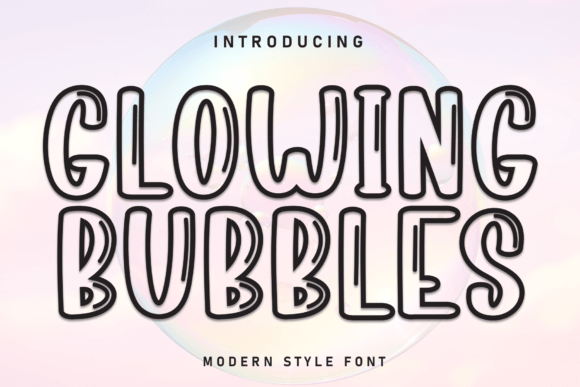
Glowing Bubbles Font: The Perfect Addition to Your Playful Designs
In the world of typography, fonts play a crucial role in conveying the tone and personality of a brand or design. When it comes to creating eye-catching and fun designs, the right font can make all the difference. This is where Glowing Bubbles Font comes in – a modern display font that features bright, bubble-like letters that are sure to make your text stand out.
What is Glowing Bubbles Font?
Glowing Bubbles Font is a modern display font designed to add a touch of excitement and playfulness to your projects. Its bright, bubble-like letters are perfect for making text stand out in posters, headlines, and other designs where you want to grab the attention of your audience. The font has a vibrant and lively appearance, making it ideal for designs that require a youthful and energetic feel.
Key Features of Glowing Bubbles Font
So, what makes Glowing Bubbles Font so special? Here are some of its key features:
- Bright and Bubble-like Letters: The font features bright, bubble-like letters that are sure to catch the eye.
- Modern and Playful Design: The font has a modern and playful design, making it perfect for designs that require a youthful and energetic feel.
- Easily Readable: Despite its playful design, the font is easily readable, even at smaller sizes.
- High-quality Design: The font is designed with high-quality graphics, ensuring that it looks great in any design.
Use Cases for Glowing Bubbles Font
So, where can you use Glowing Bubbles Font? The possibilities are endless, but here are some ideas to get you started:
- Posters and Flyers: Use Glowing Bubbles Font to create eye-catching posters and flyers that grab the attention of your audience.
- Headlines and Titles: Use the font to create bold and playful headlines and titles that add a touch of excitement to your designs.
- Social Media Graphics: Use Glowing Bubbles Font to create social media graphics that stand out in crowded feeds.
- Playful Designs: Use the font to add a touch of playfulness to your designs, such as in children’s books, games, or apps.
Benefits of Using Glowing Bubbles Font
So, why should you use Glowing Bubbles Font in your designs? Here are some benefits:
- Adds a Touch of Excitement: The font adds a touch of excitement and playfulness to your designs, making them more engaging and attention-grabbing.
- Perfect for Youthful Brands: The font is perfect for brands that want to convey a youthful and energetic personality.
- Easily Customizable: The font is easily customizable, allowing you to adjust its size, color, and style to fit your design needs.
- High-quality Graphics: The font is designed with high-quality graphics, ensuring that it looks great in any design.
Tips for Using Glowing Bubbles Font
Here are some tips for using Glowing Bubbles Font in your designs:
- Use it Sparingly: Use the font sparingly to avoid overwhelming your design. Use it for headlines or titles, and a more neutral font for body text.
- Experiment with Colors: Experiment with different colors to find the one that works best for your design. You can also use gradients or textures to add depth and interest.
- Pair it with Other Fonts: Pair Glowing Bubbles Font with other fonts to create a unique and interesting contrast. Try pairing it with a sans-serif font for a clean and modern look.
In conclusion, Glowing Bubbles Font is a modern display font that features bright, bubble-like letters that are sure to make your text stand out. Its playful and vibrant design makes it perfect for designs that require a youthful and energetic feel. With its high-quality graphics and easily customizable design, Glowing Bubbles Font is a great addition to any design project.